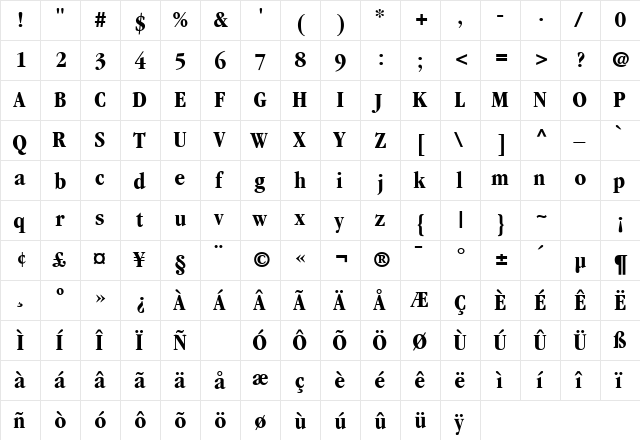
Garamond Black Condensed SSi Bold Condensed
Design Context for Garamond Black Condensed SSi Typeface
Garamond Black Condensed SSi is a composed and adaptable typeface that performs quietly and consistently across a wide range of design contexts. Its bold stroke weight gives it real presence on the page. The condensed width makes it efficient for tight spaces without sacrificing legibility.